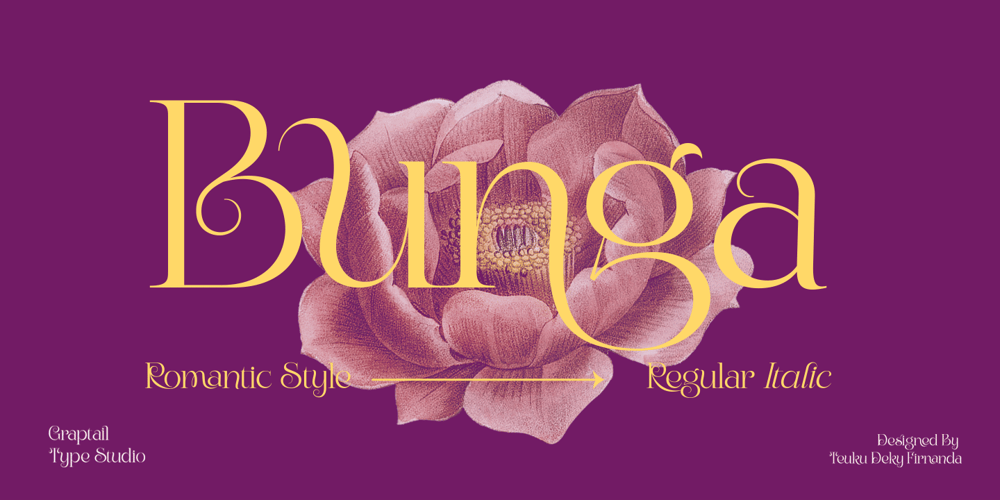
Bunga Pro
Bunga Pro font
Bunga Pro Font Family was designed by Teuku Deky Firnanda and published by Graptail. Bunga Pro contains 2 styles and family package options. Bunga is a serif typeface that gives a romantic feel to every curve. With 45 ligatures and alternates which are included, it is very helpful in creating the title of each of your projects such as film titles, book covers, branding, logos, packaging, magazines and more.Also supported PUA encoded. Simply copy and paste the alternate characters using the Character Map (Windows), Font Book (Mac) or a software program such as PopChar (for Windows and Mac).